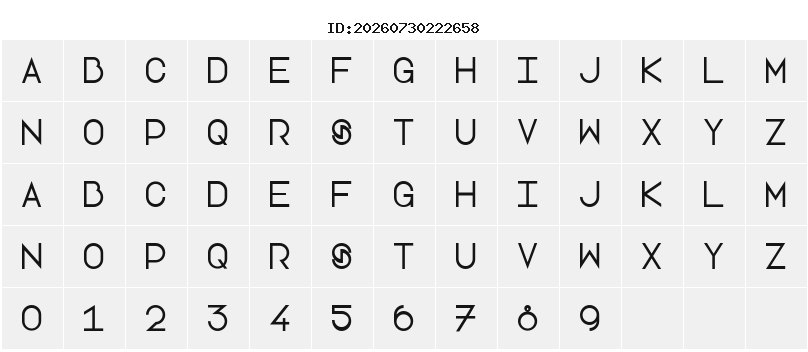
Lotte Paperfang Preview
About Lotte Paperfang.ttf
Lotte Paperfang.ttf is a modern, elegant sans-serif font designed for ultimate readability and visual harmony. Perfect for branding, headlines, web design, and print materials.